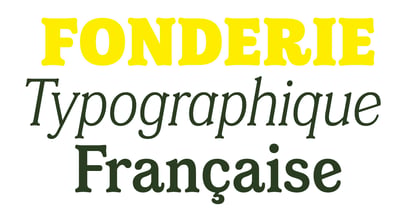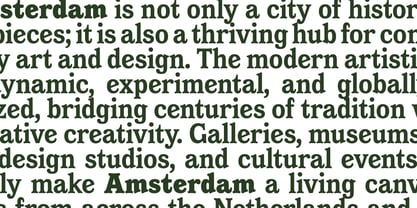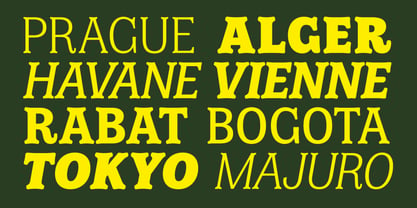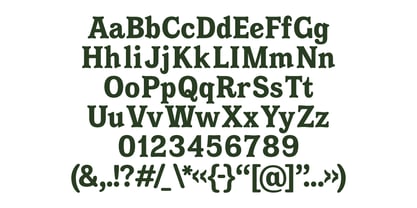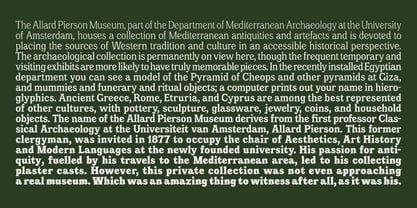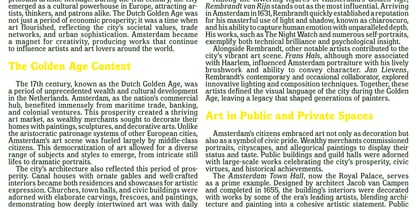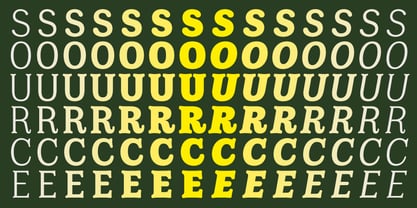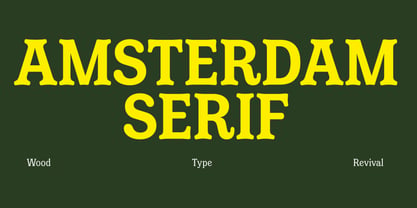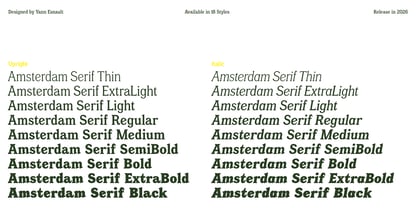
Amsterdam Serif
von Blaze Type
Die Schriftfamilie Amsterdam Serif wurde von Yann Esnault entworfen und von Blaze Type veröffentlicht. Amsterdam Serif enthält 19 Stile und Familienpaketoptionen. Mehr über diese Familie
Amsterdam Serif is a revival of a wood type discovered in the type case of an old printing workshop named Unitype in Brussels. The distinctive terminations of the letterforms immediately capture attention—shapes that exude both unexpected charm and singularity. Amsterdam Serif is a generous reinterpretation of the original early 20th-century wood typeface, infused with a distinct calligraphic sensibility. Designed as a true workhorse family, it bridges the gap between historical revival and contemporary refinement—stabilising certain inherited shapes to create a typeface that is both robust and remarkably elegant. This makes it ideal for complex editorial environments and large-scale typographic systems. Following the initial discovery, extensive research was conducted to trace the origins of these wooden letters while simultaneously developing the typeface. This serif version marks the end of the Amsterdam family’s development. Designed for versatility, Amsterdam Serif meets the demands of signage systems, branding, global visual identities, and editorial design with clarity and sophistication.
Designer: Yann Esnault
Foundry: Blaze Type